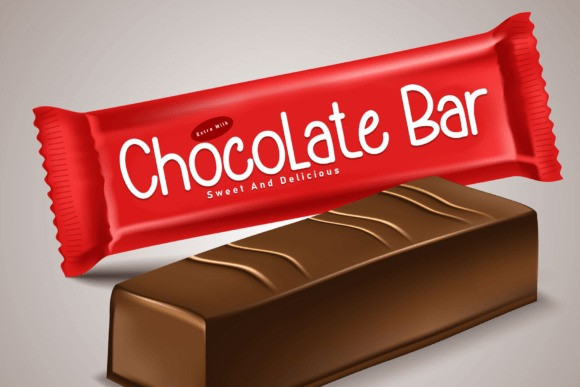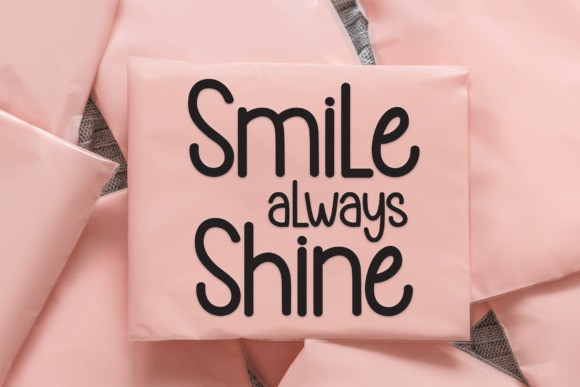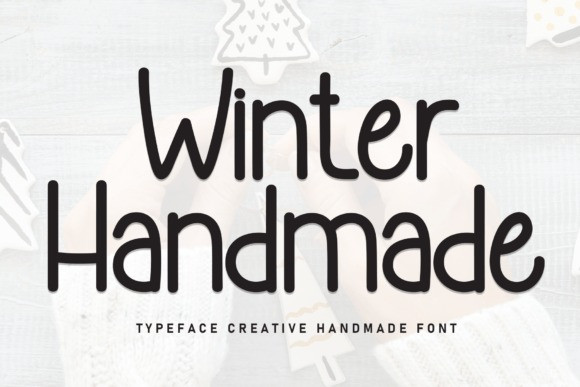
Winter Handmade Font
Winter Handmade is a sweet and friendly handwritten display font. Cute and fun, this font is ideal for writing wedding invitations, cards, or any other design that might need a fun touch!